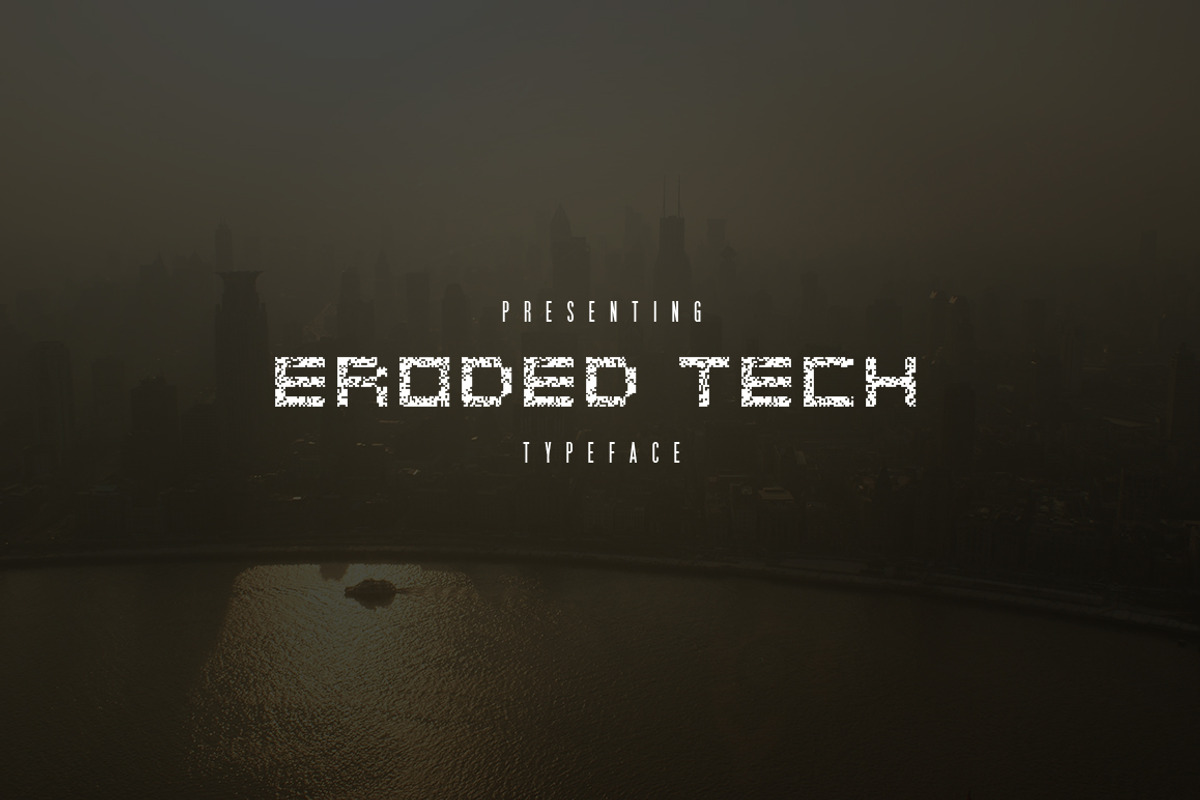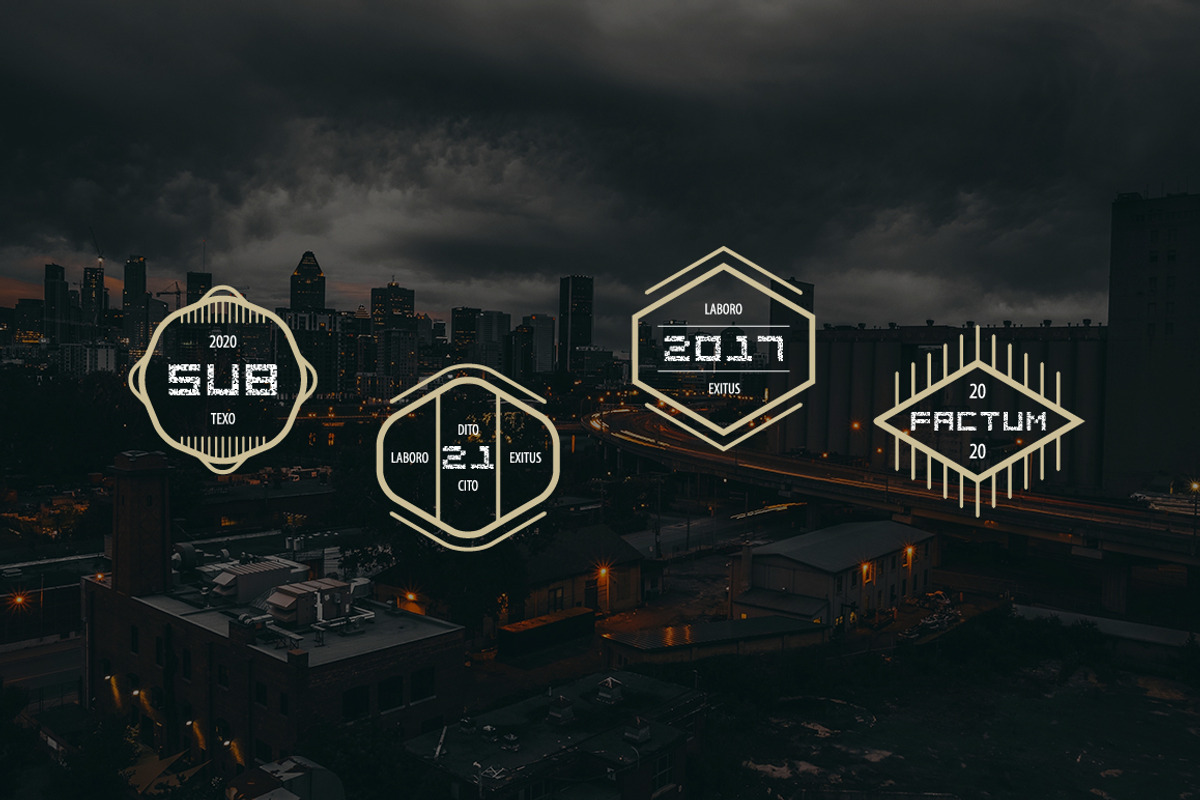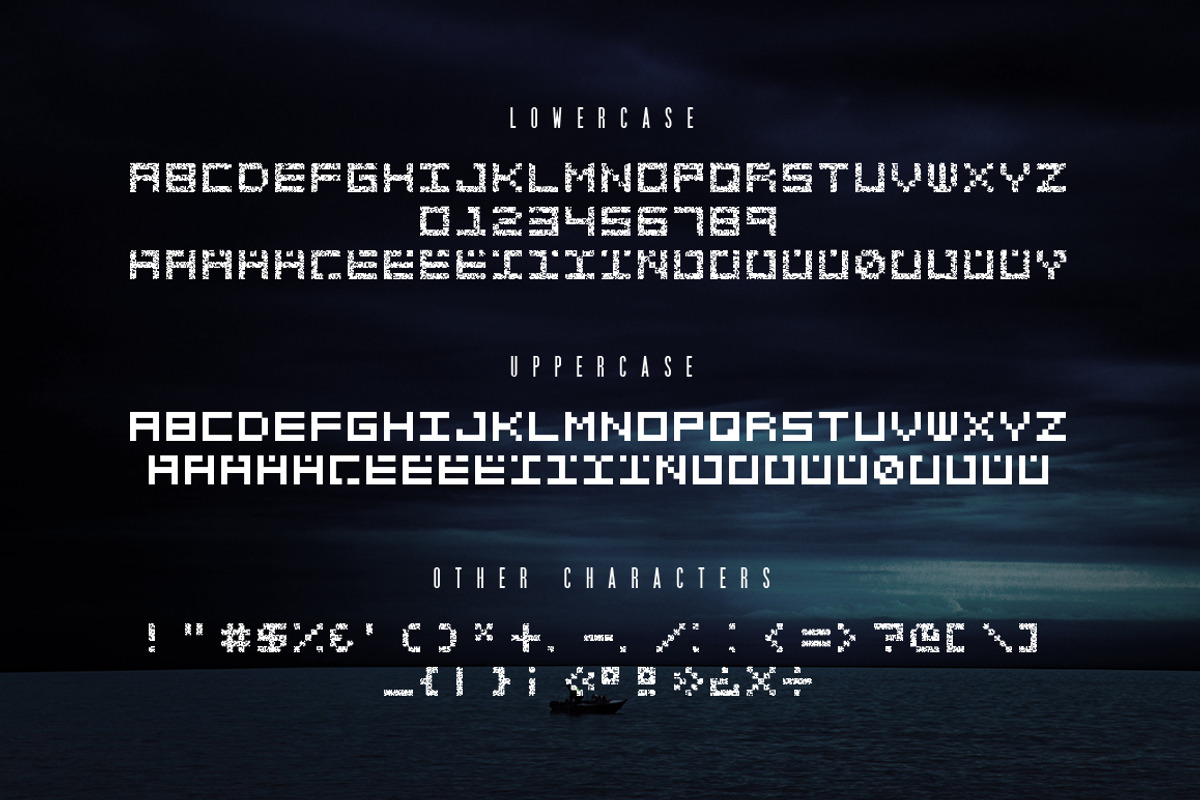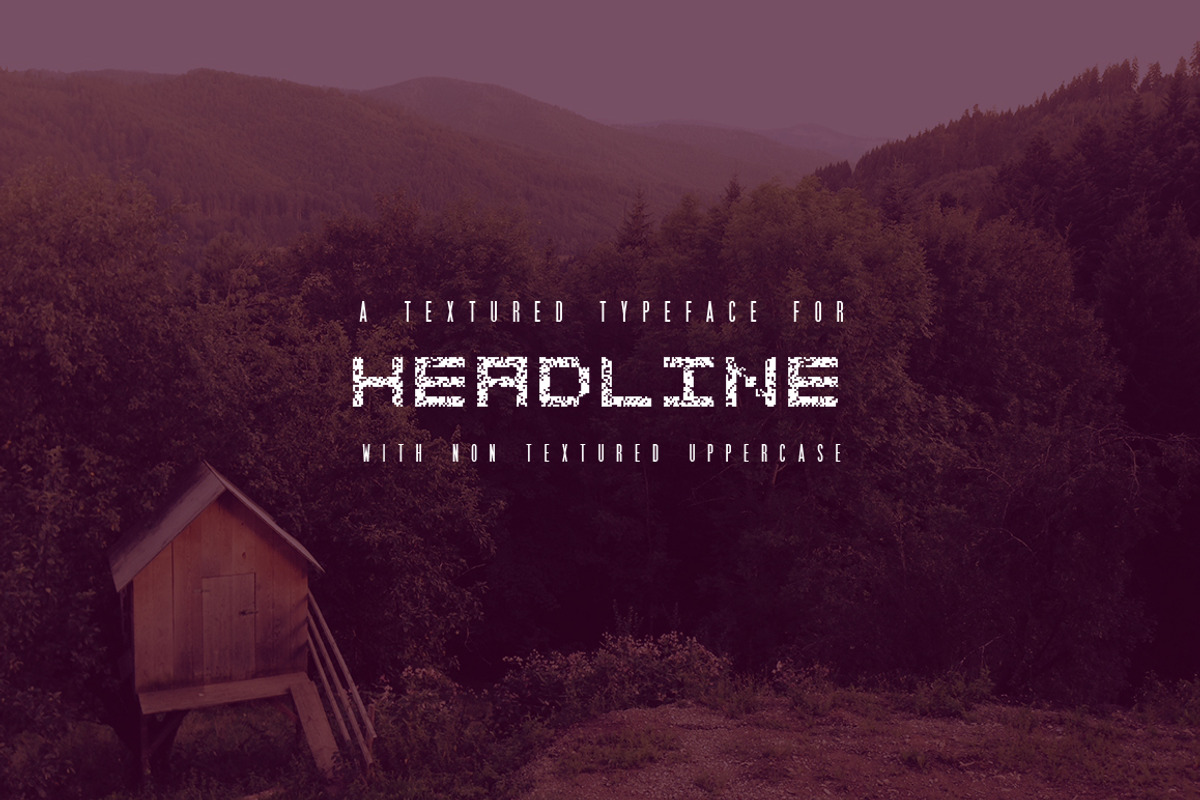
Eroded Tech Typeface
Eroded Tech Typeface by AlmaWorks is a font selected for branding, posters, packaging, typography.
Why Eroded Tech Typeface is worth a look
Eroded Tech Typeface by AlmaWorks fits naturally into Branding, posters, packaging, typography.